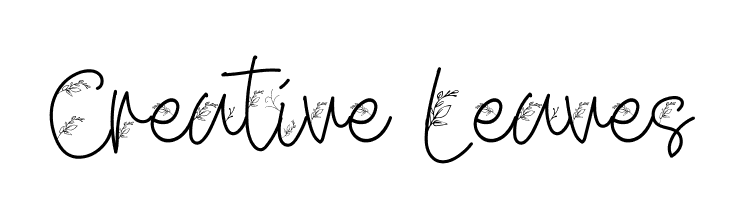
A playful, modern outline font with rounded edges and consistent stroke width.
A bold, decorative font with a Mexican-inspired, playful style and italicized slant.
A clean, modern font with rounded edges and excellent readability.
A bold, decorative font with a modern and vintage blend, featuring angular strokes and elegant curves.
A bold, cursive script font with elegant, flowing lines and connected characters.
A playful, handwritten font with dynamic, irregular strokes.
A distressed, grungy font with a rugged, textured appearance.